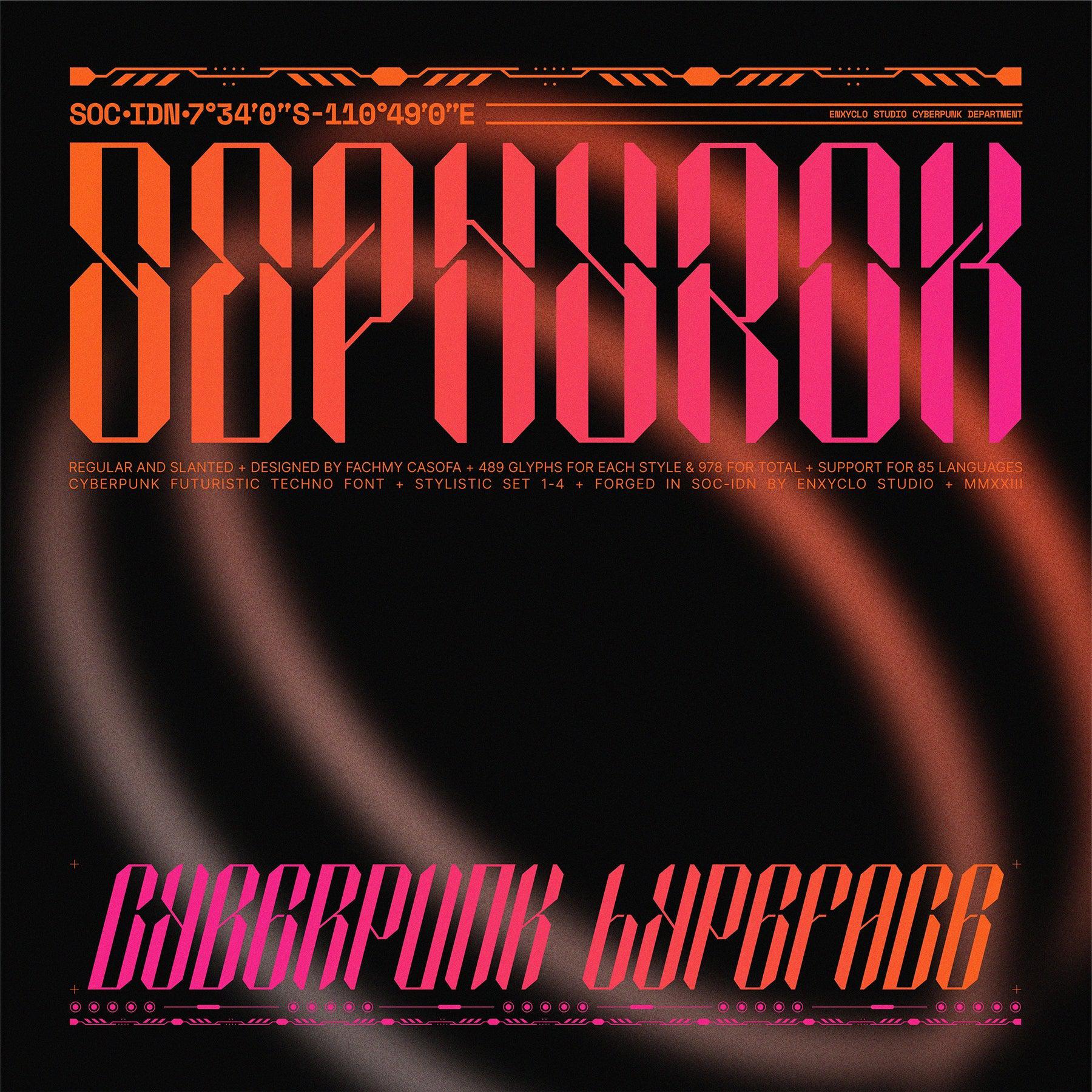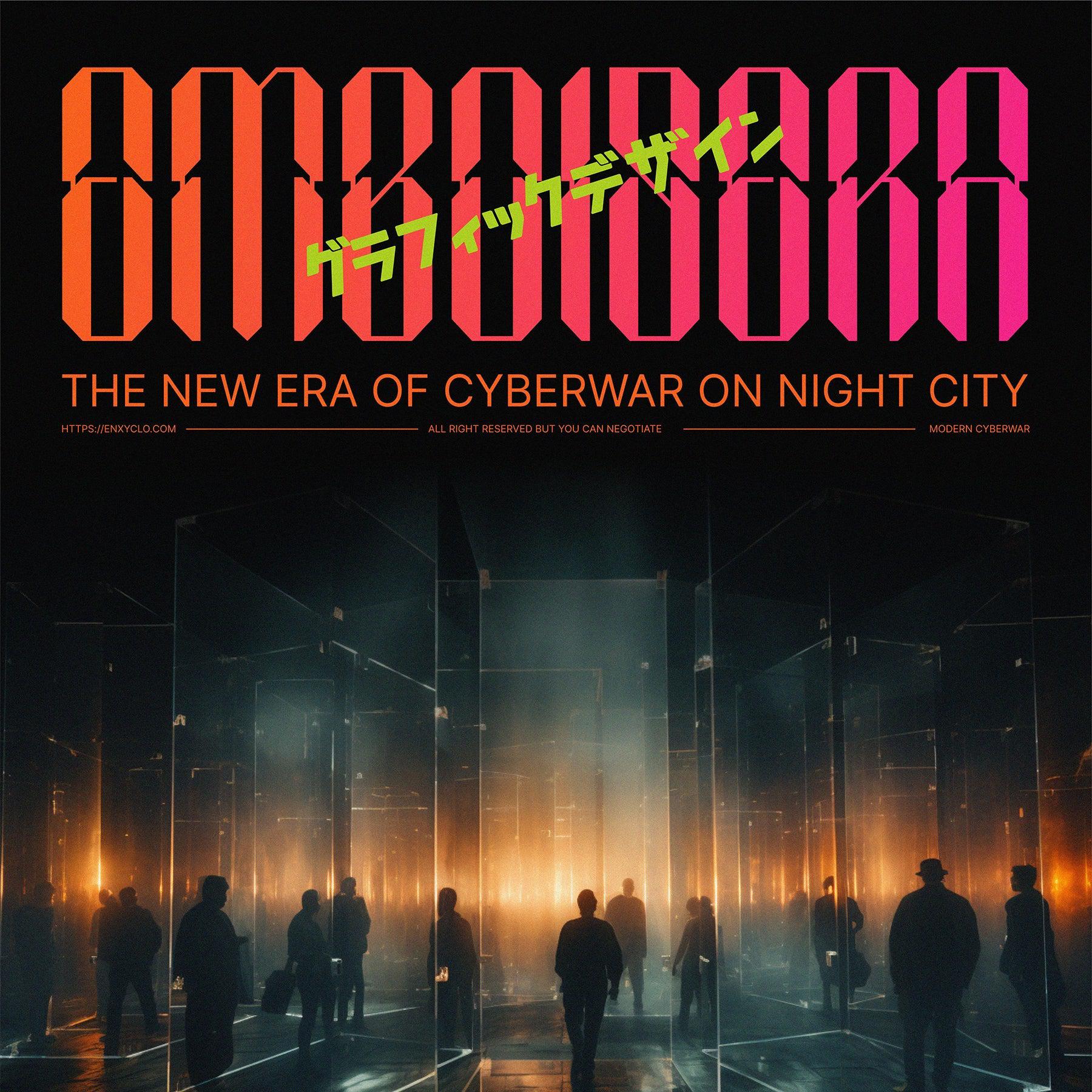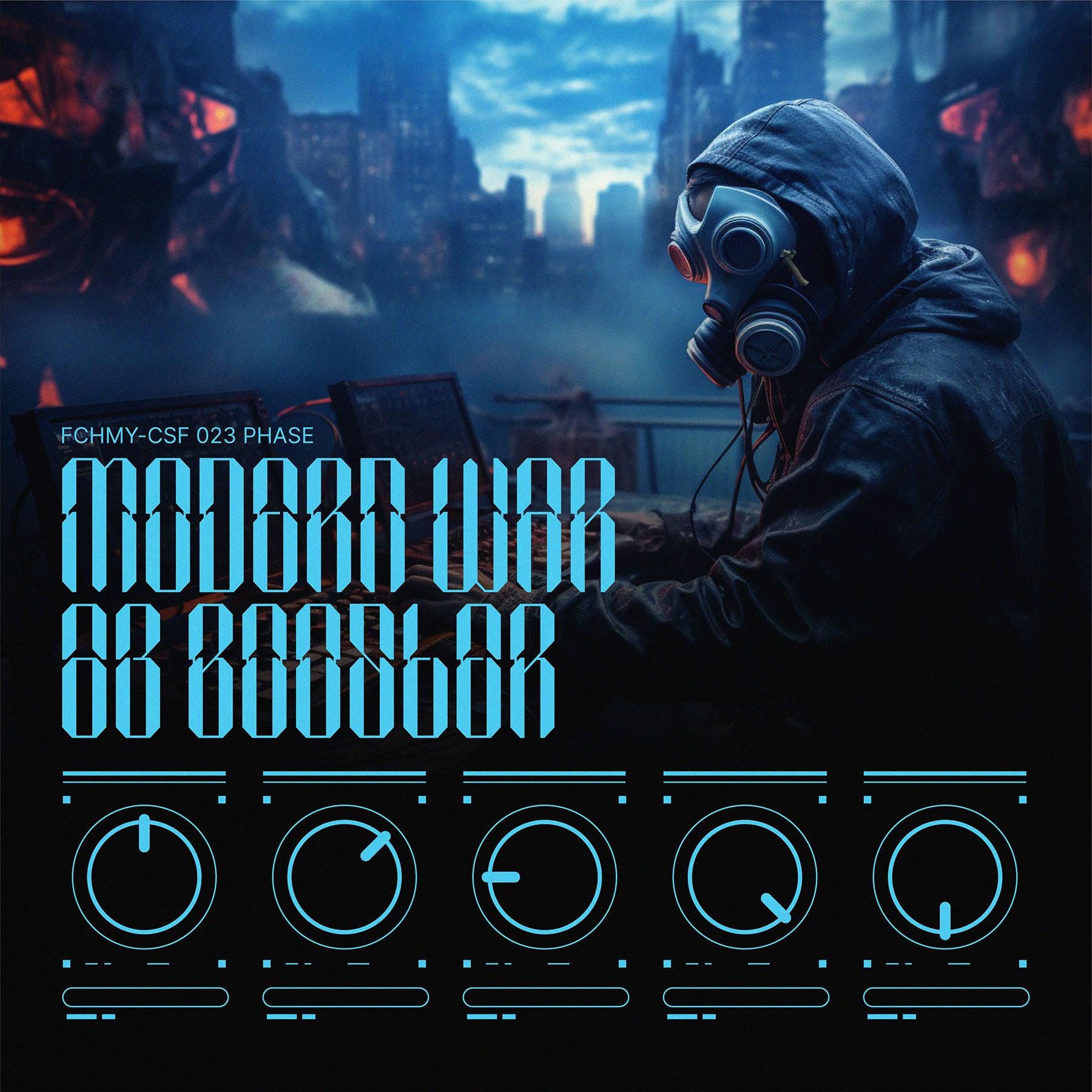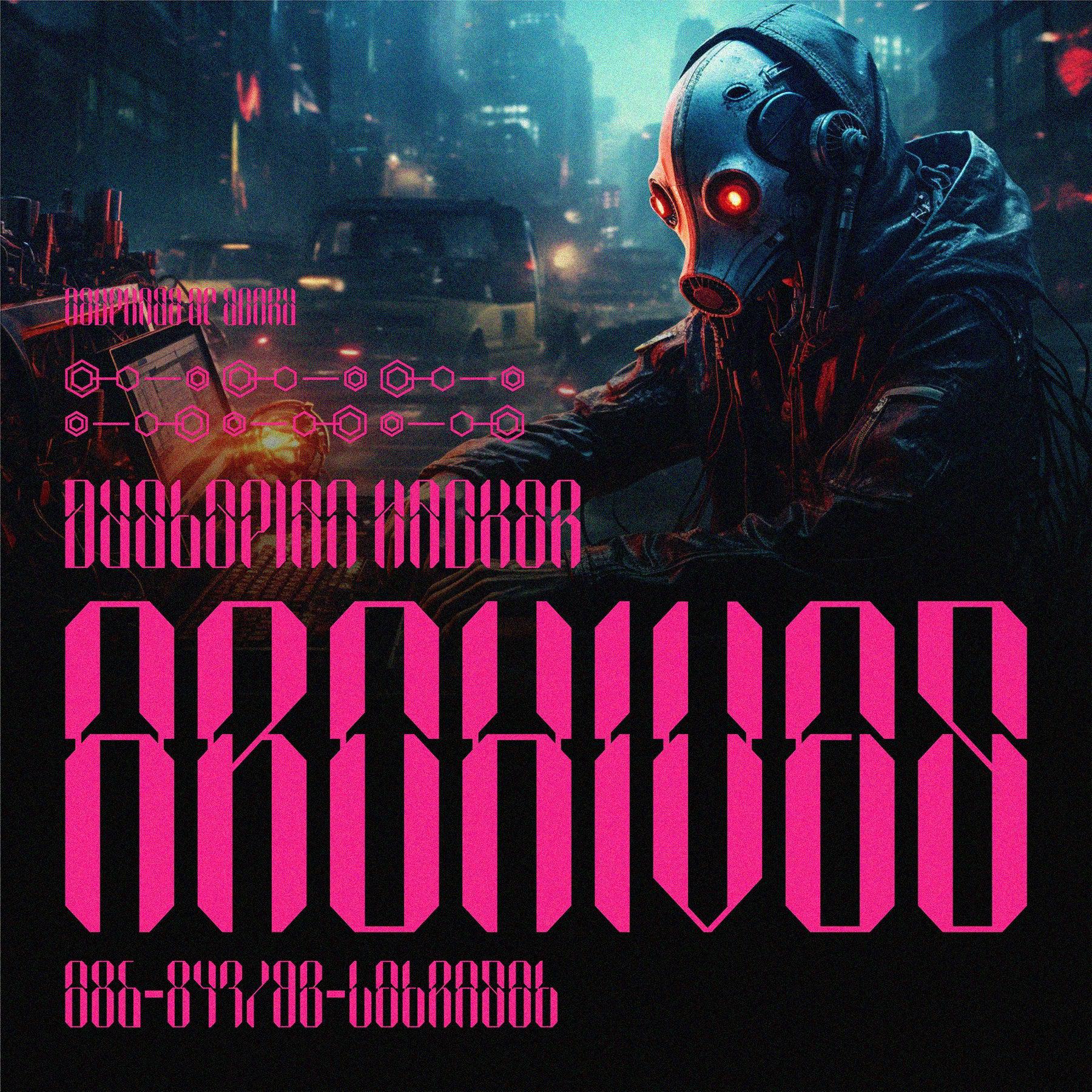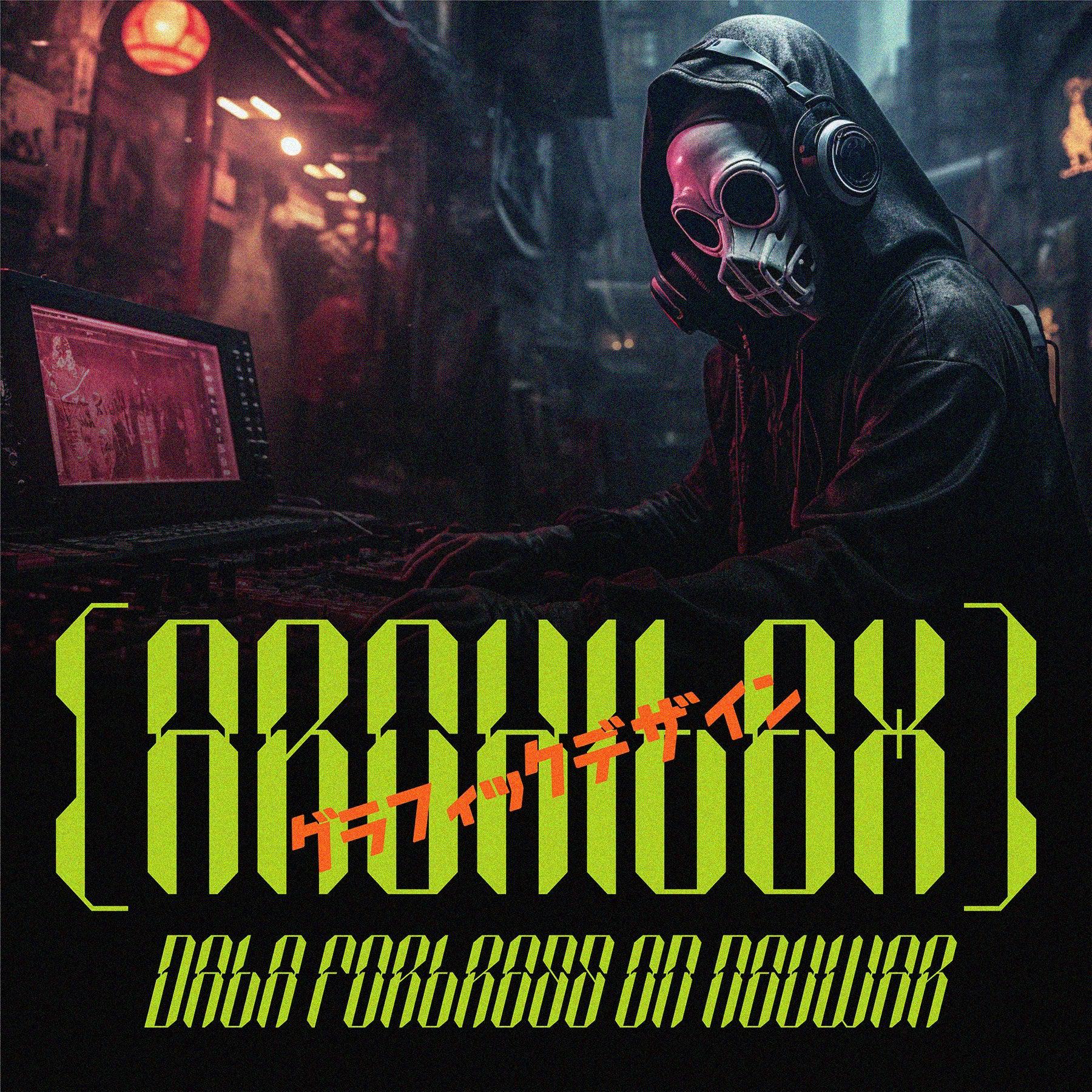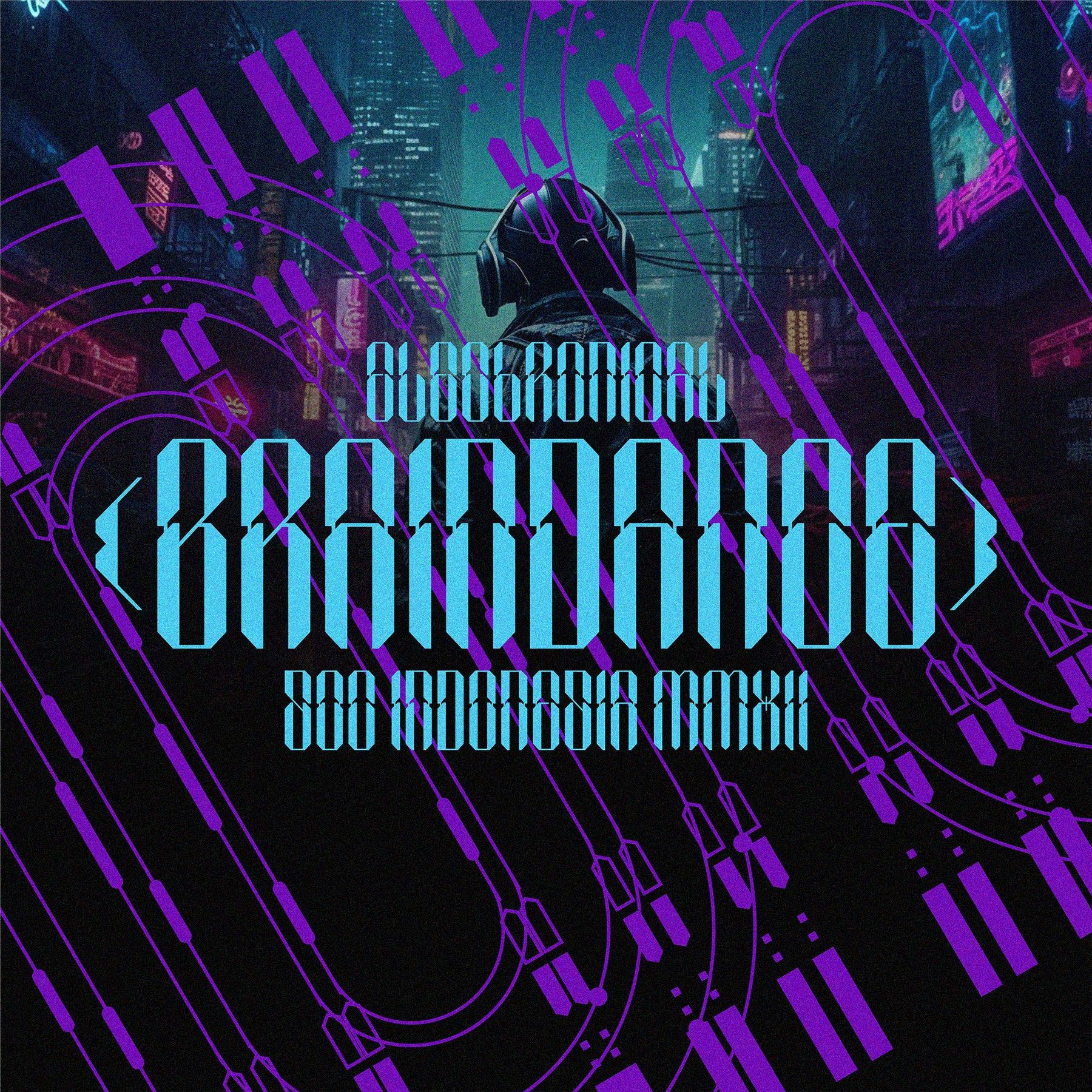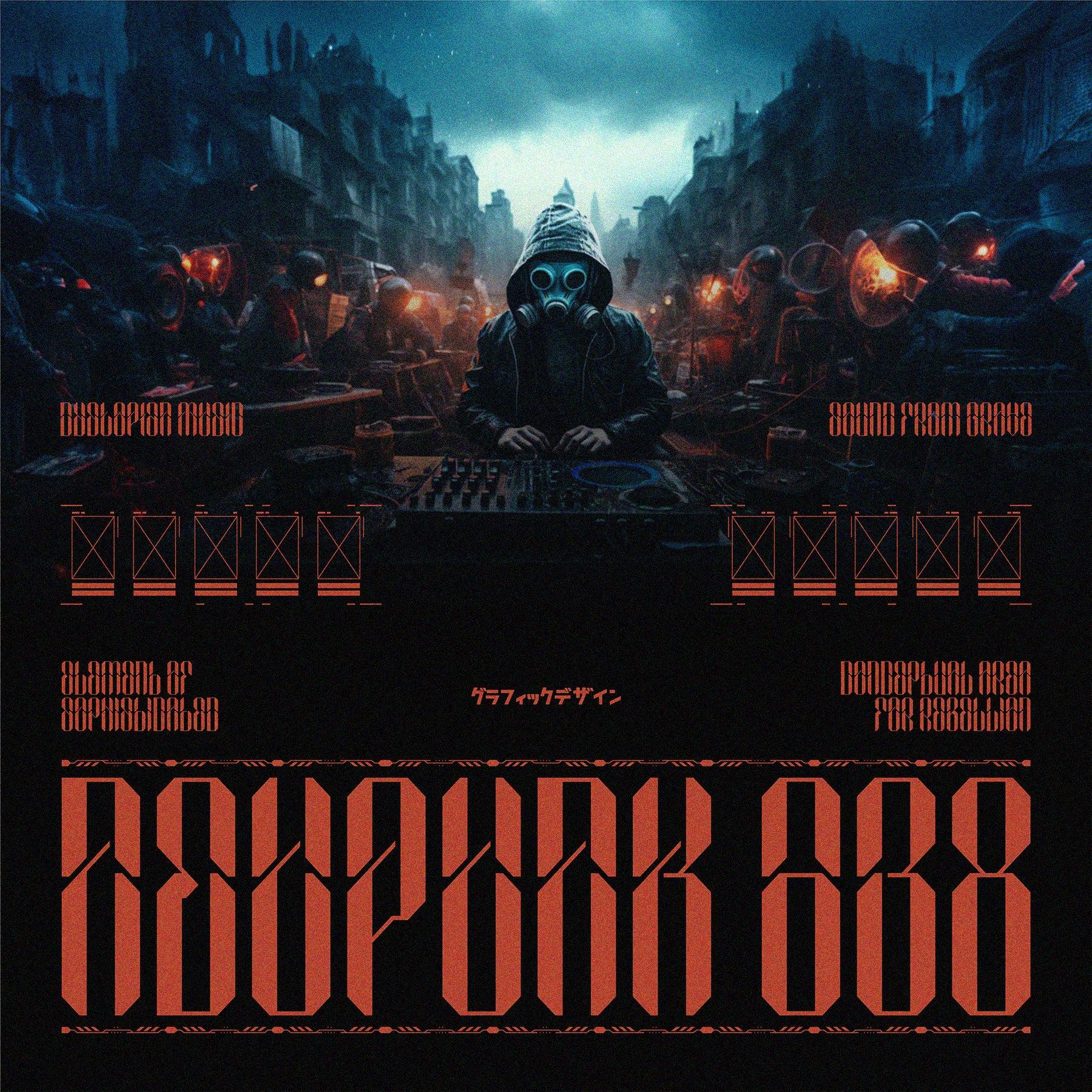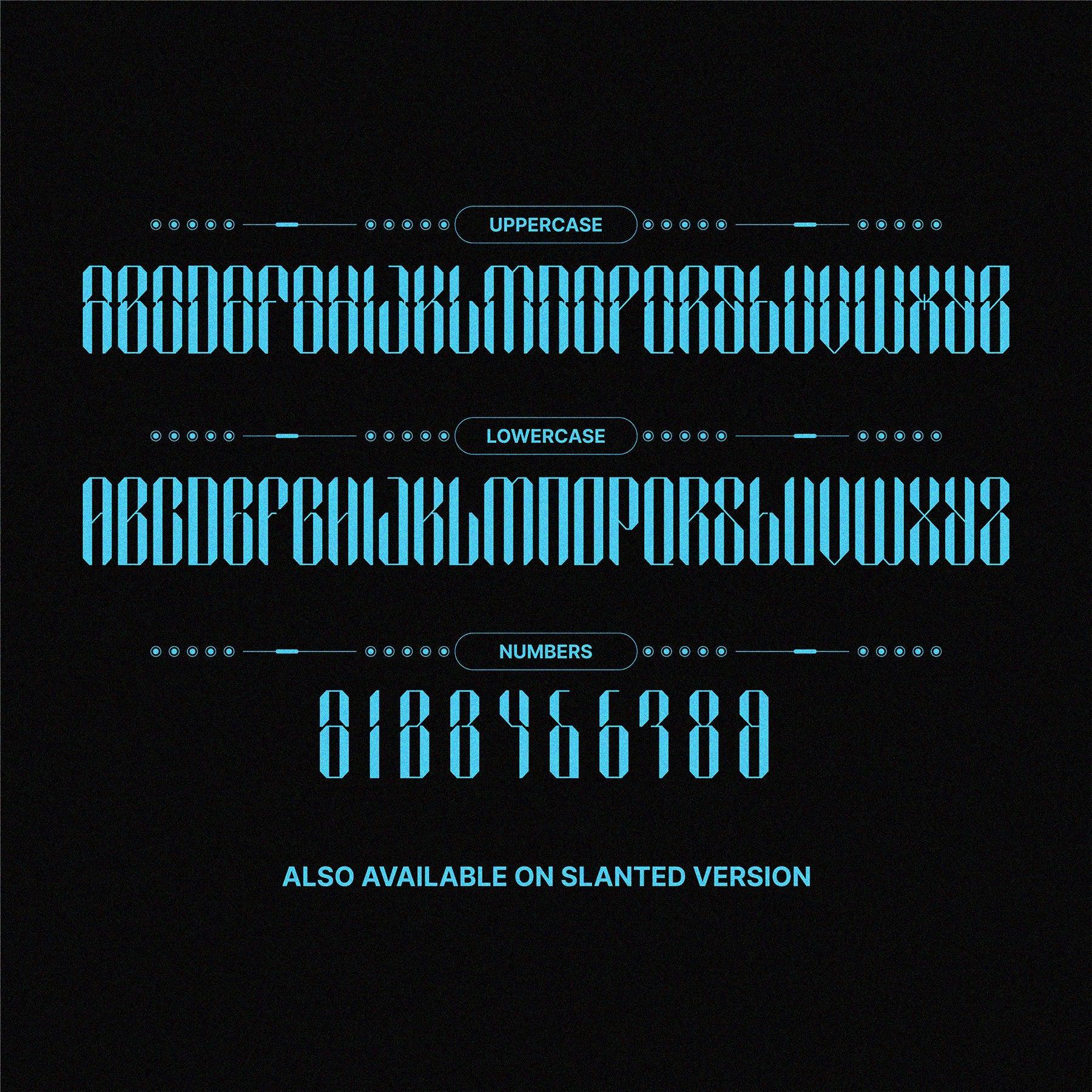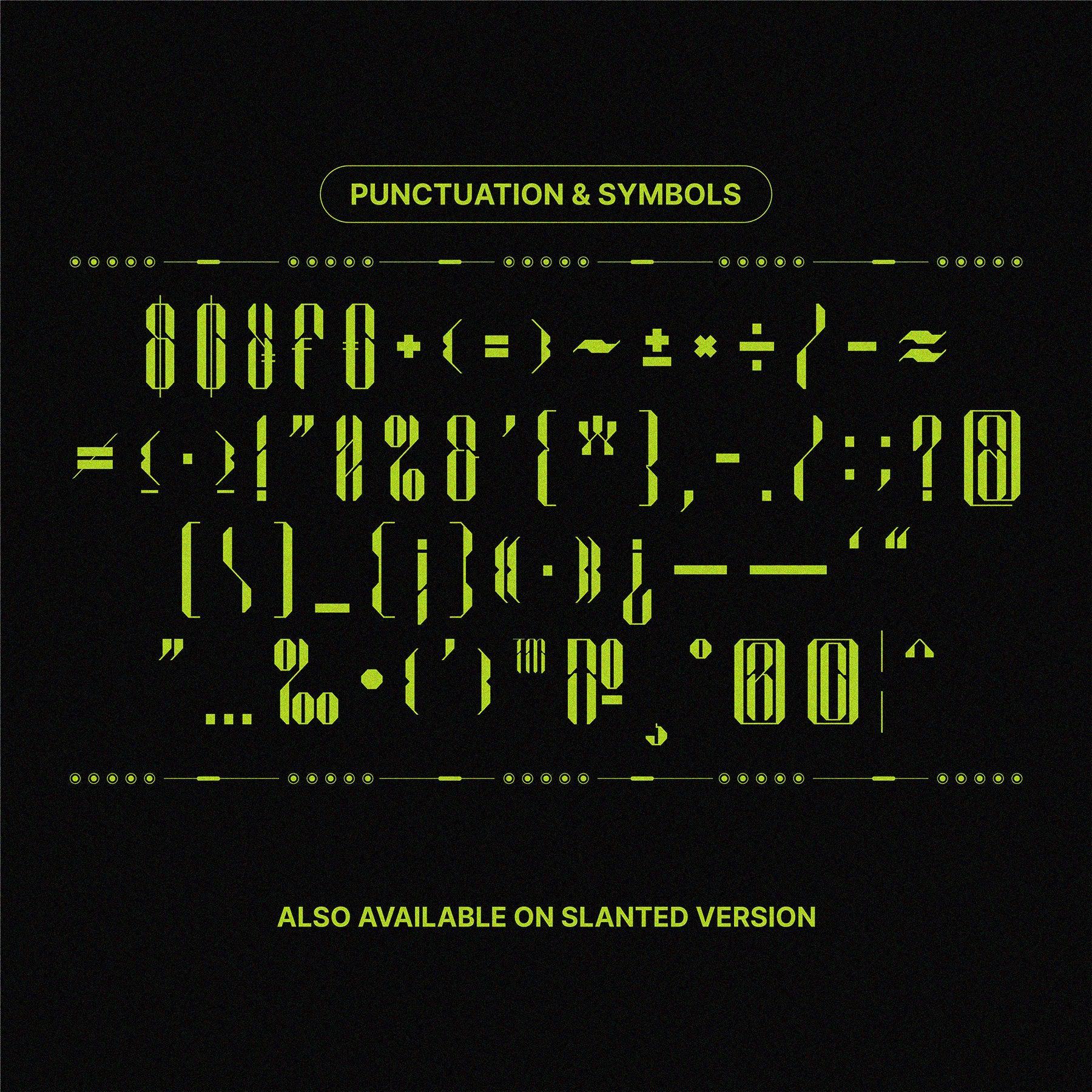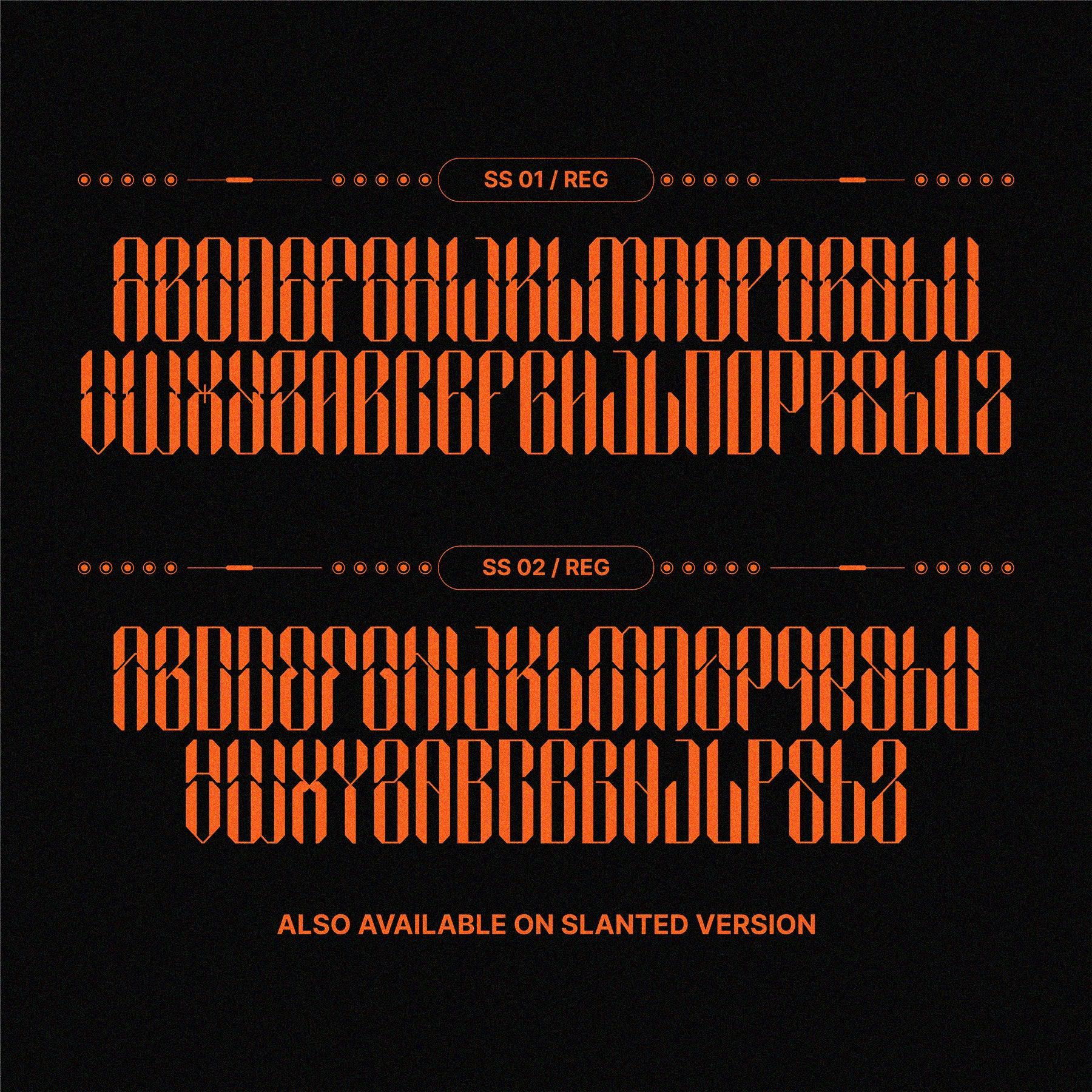
SEPHYROK
The NCL Sephyrok is a cyberpunk futuristic tech condensed font featuring two styles: regular and slanted. It includes 978 glyphs in total, supporting uppercase, lowercase, numerals, punctuation, symbols, and stylistic sets. The font is compatible with 85 languages and comes in True Type Font (TTF), Open Type Font (OTF), and Web Open Format (WOFF1 & WOFF2).
Ideal for cyberpunk and futuristic design projects. Perfect for posters, branding, website graphics, and album covers, ensuring a distinctive and innovative aesthetic that captures attention.